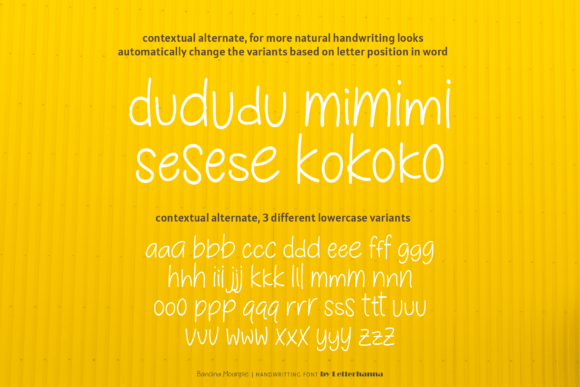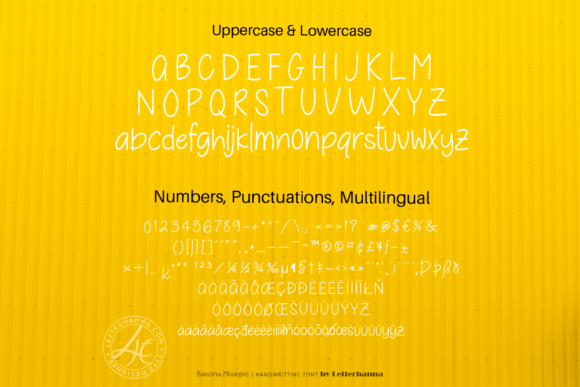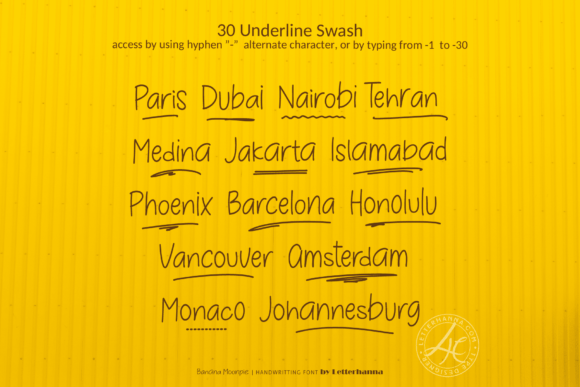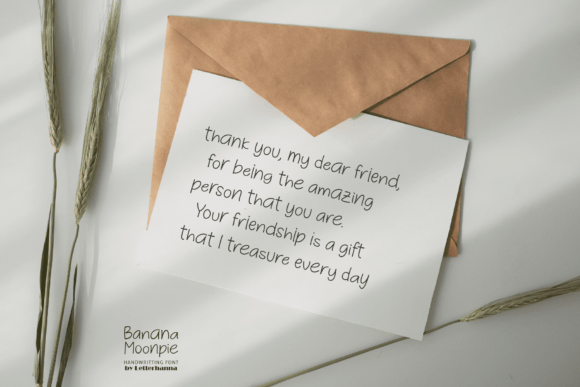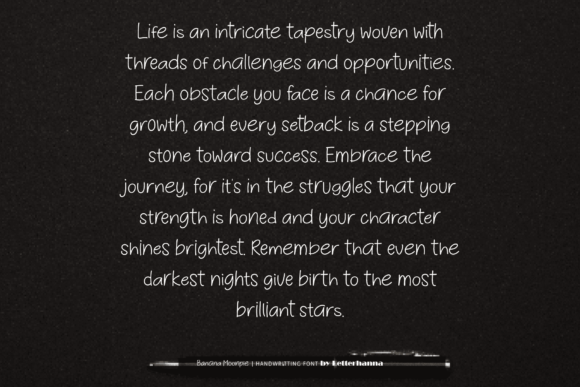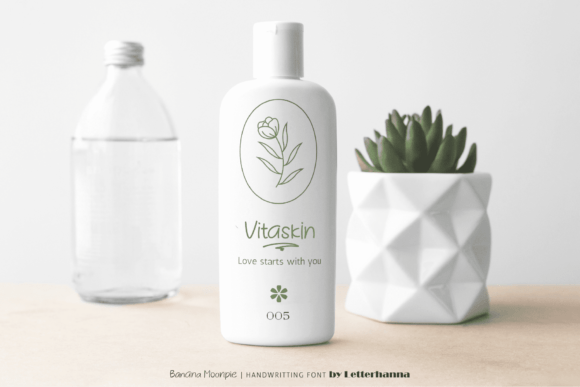
Introduction to Banana Moonpie Font Font
Fonts play a crucial role in design, and the Banana Moonpie Font font is a typeface that brings both character and versatility to any project. Whether you’re working on a branding project, a website, or a print design, the Banana Moonpie Font font offers a unique style that can elevate your work.
โBanana Moonpieโ is a fresh and whimsical addition to the world of fonts.
This unique handwritten font combines the casual charm of handwritten script with the clarity of a sans serif typeface, resulting in a delightful and versatile font thatโs as fun as its name suggests .
Key Features of Banana Moonpie Font Font
- โ High-quality typeface designed for professional use
- โ Includes a wide range of glyphs and characters
- โ Ideal for logos, branding, websites, and print
Why Choose Banana Moonpie Font Font?
The Banana Moonpie Font font is more than just a typeface โ it’s a design tool that helps you communicate your message with style and clarity. Its unique character set and versatile design make it suitable for a wide range of applications, from elegant invitations to bold headlines.
With its carefully crafted letterforms and balanced proportions, the Banana Moonpie Font font ensures readability and visual appeal across all mediums.
What makes Banana Moonpie Font font special?
The Banana Moonpie Font font stands out with its unique design, exceptional readability, and versatility across various design applications.